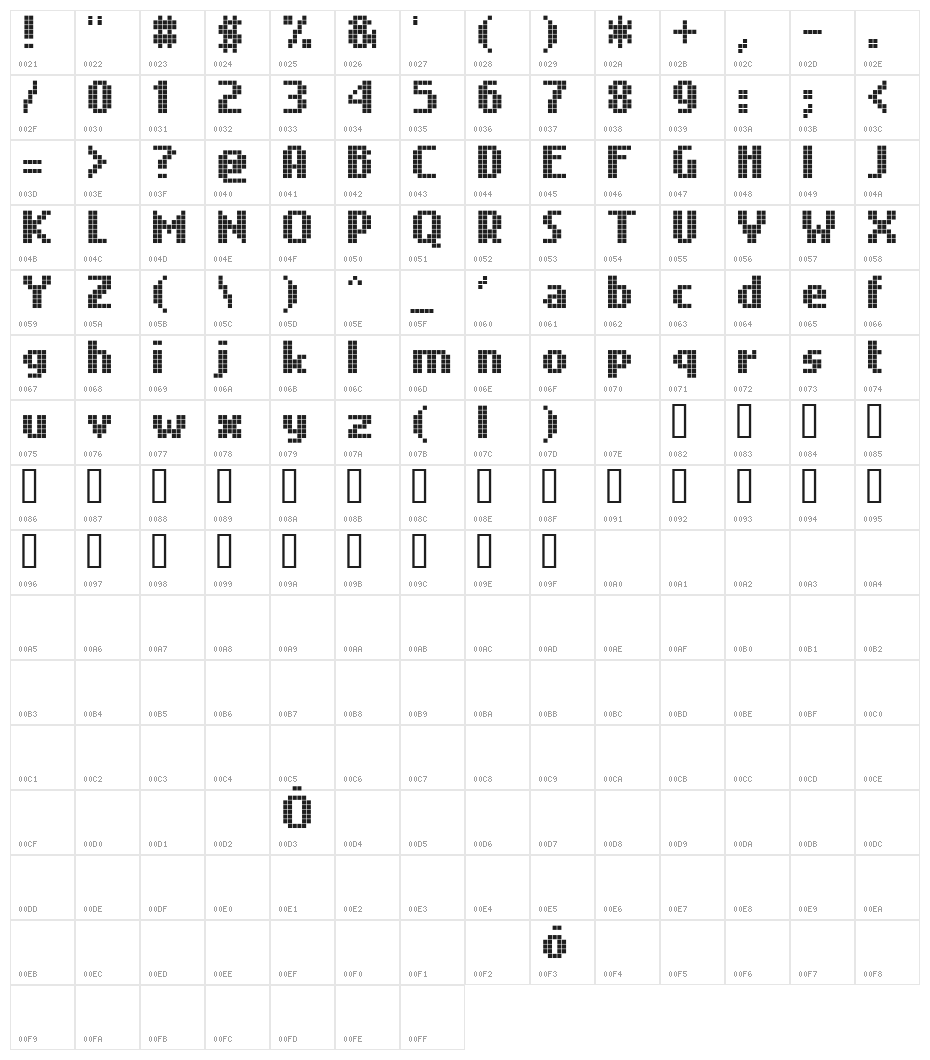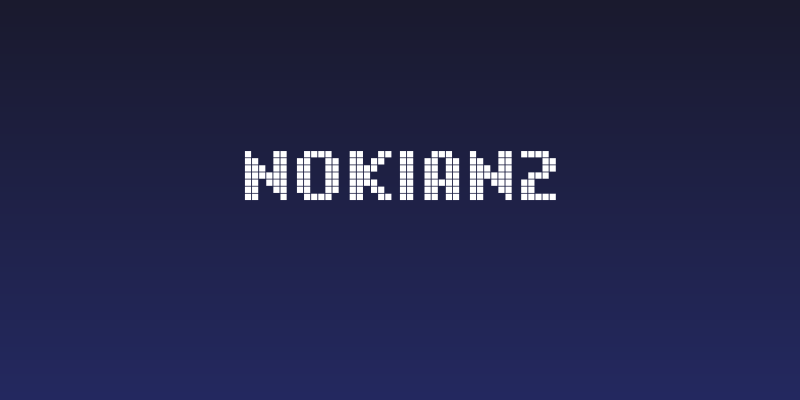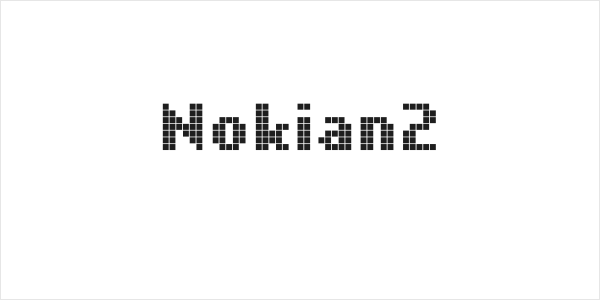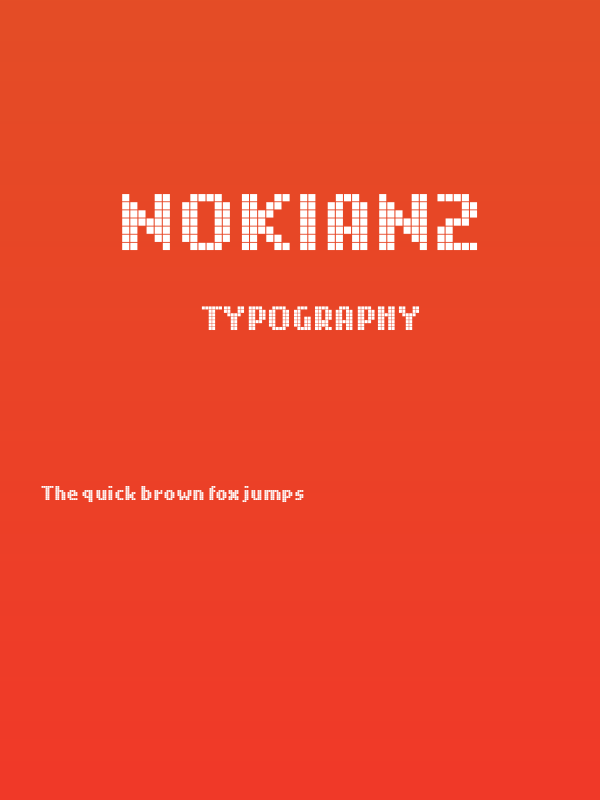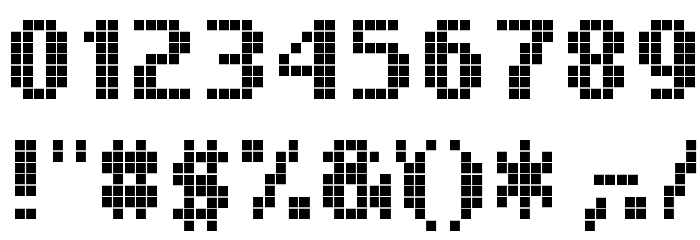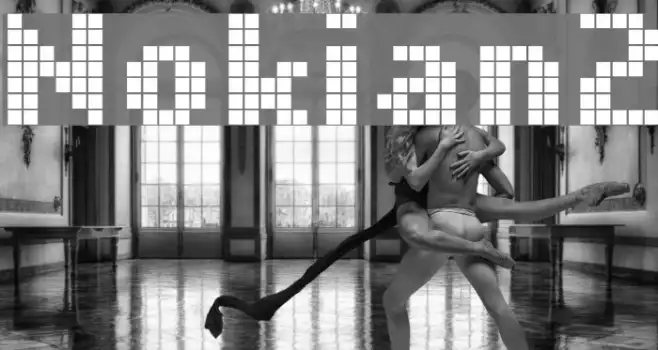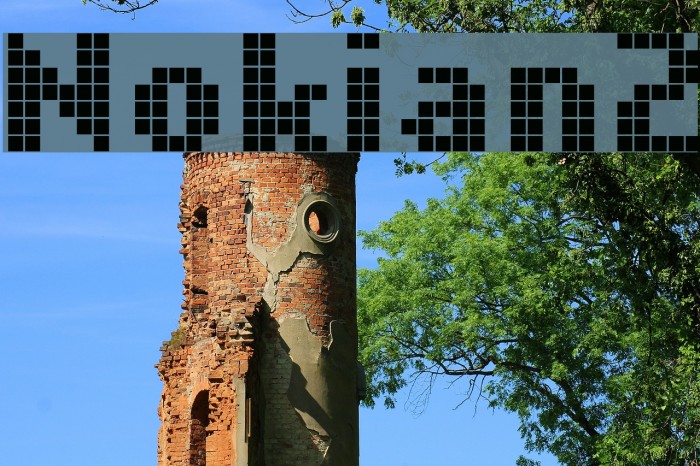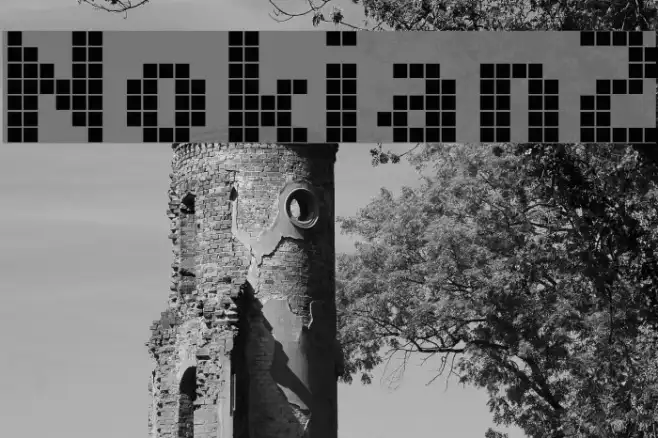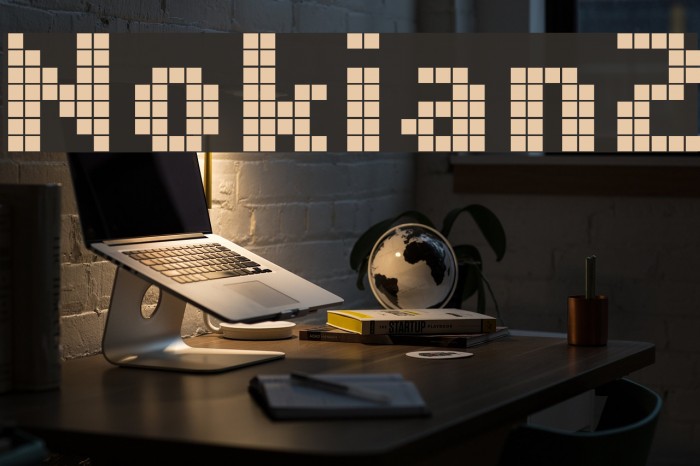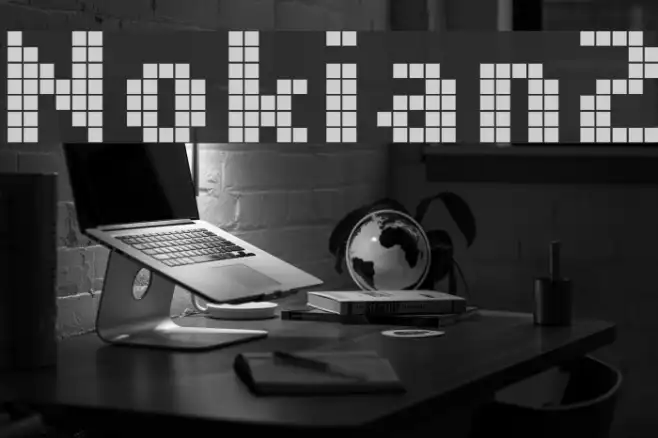
Nokian2 Font
Nokian2 Description
This font features a distinctive pixelated design, reminiscent of early digital displays and retro video games. Each character is constructed from a grid of small squares, giving it a blocky and geometric appearance. The uppercase and lowercase letters maintain a consistent style, with clear differentiation between each character. Numbers and special characters are also designed in the same pixelated fashion, ensuring uniformity across the entire set. The font's unique style makes it ideal for projects that aim to evoke nostalgia or a digital aesthetic.
| Proposed Projects | Ideal for retro video game graphics, digital art projects, tech-themed posters, and any design requiring a nostalgic digital look. |